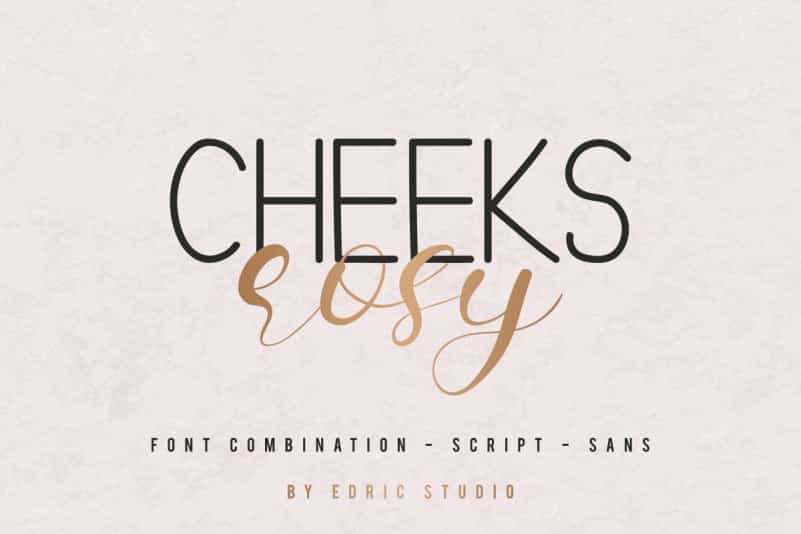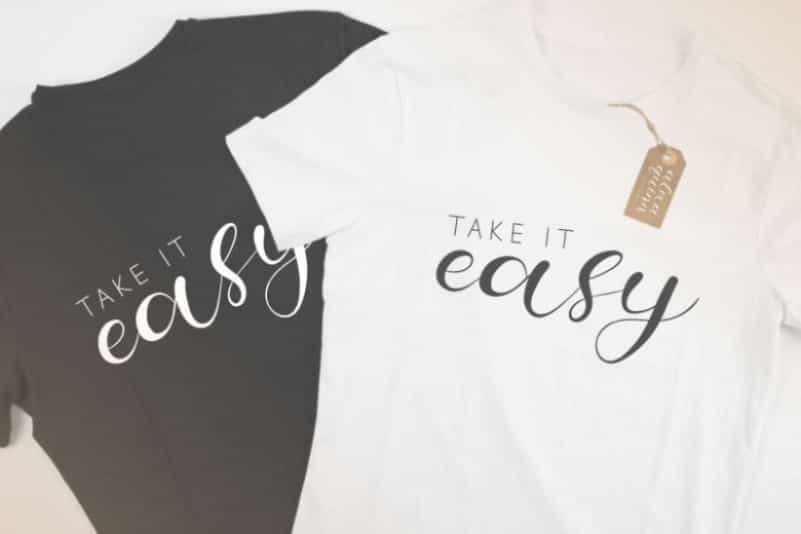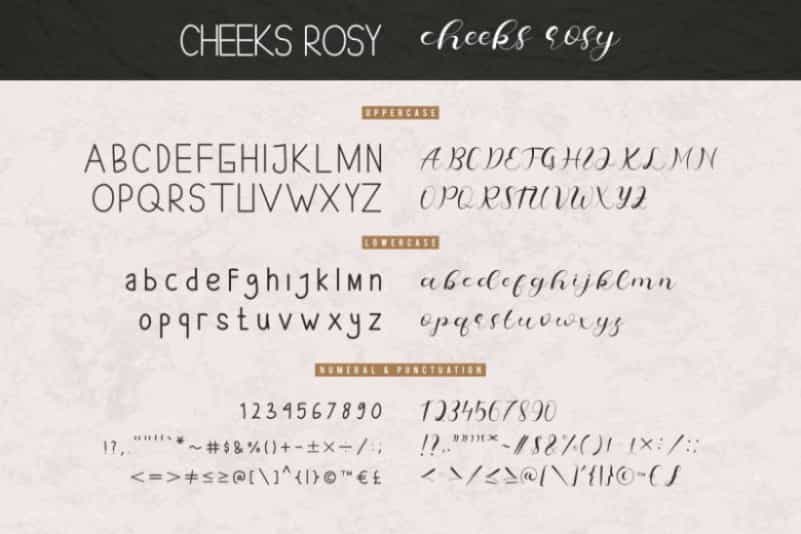
Cheeks Rosy Font Duo is a special typeface pair that has its own style and elegance. The typeface has a lovely set of characters, excellently kerned and spaced. The style of this font is elegant, stylish, sophisticated and classic brush calligraphic. It is unique you will not find it anywhere else, the font like Cheeks Rosy Font Duo.